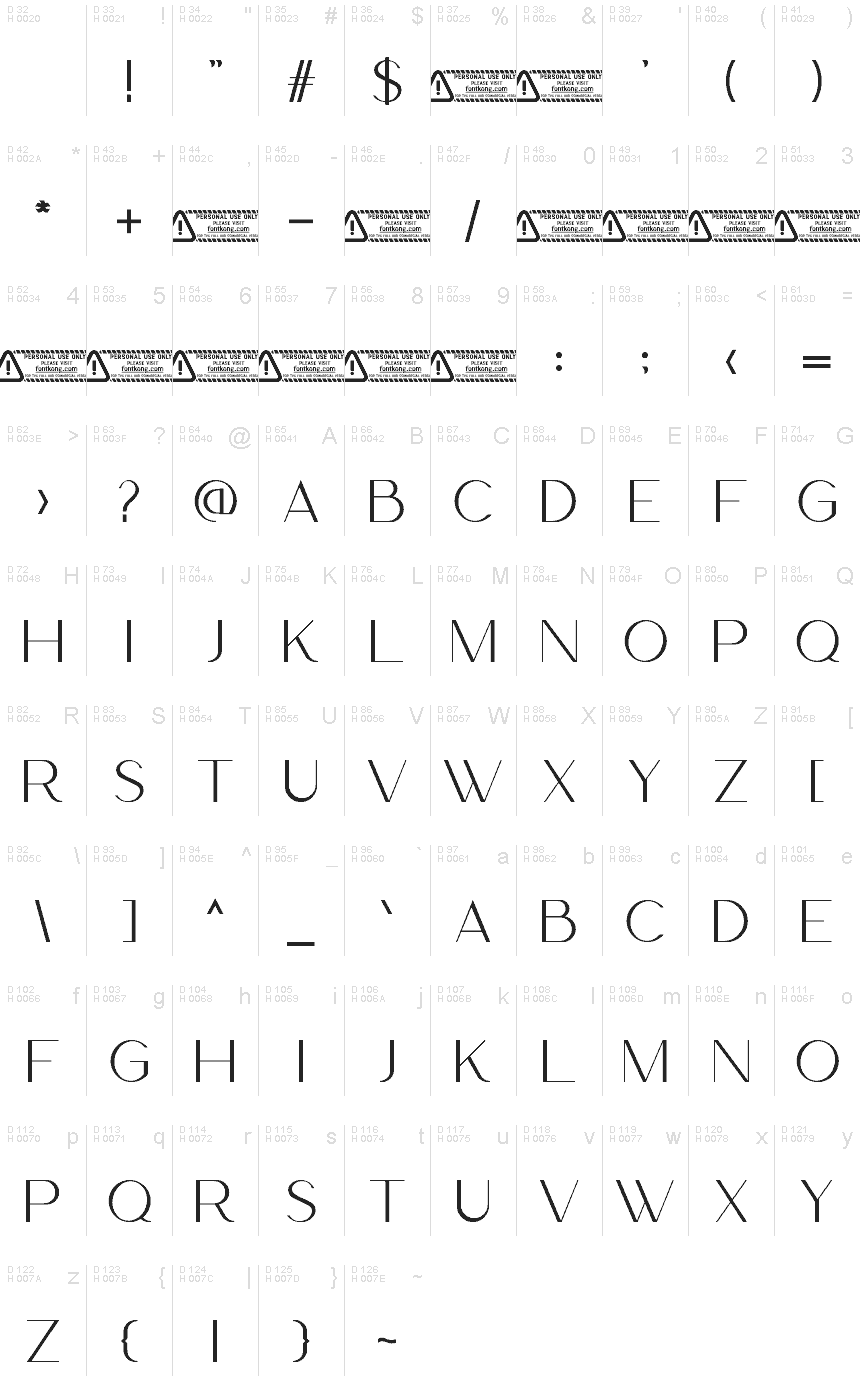
Mariposa font by Kong Font is a light sans serif font where elegance and sophistication dominate. Comfortable for the eyes, simple and minimalist, each character speaks for itself, sharing its own beauty far better when put together with other letters. The versatility of this professional resource can be celebrated within the personal use projects it decorates.
Make your pick: photographers’ websites and logos, book covers with legible titles, stand-out magazine covers, or any branding design project that can benefit from its modern look. Or create casual greeting cards to send happy thoughts their way! Mariposa is free to use although only on your personal designs.